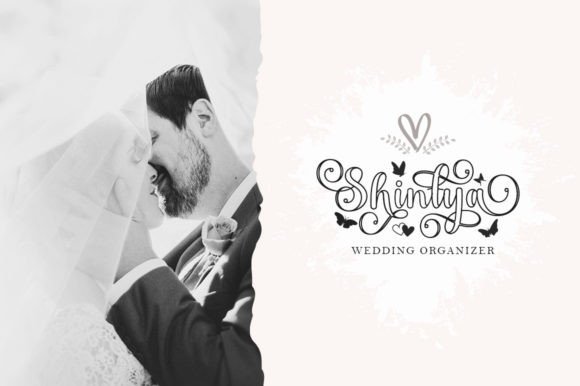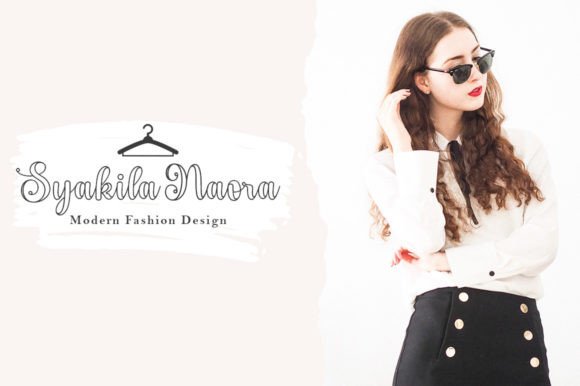
Introduction to Sabelia Outline Font
Sabelia Outline is a neat, beautiful, and elegant handwritten font perfect for your favorite projects.
Fun and relaxed, this font is ideal for writing wedding invitations, cards, or any other design that might need a fancy touch Fall in love with its radically different and timeless style, and use it to create spectacular designs.
Key Features of Sabelia Outline Font
Why Choose Sabelia Outline Font?
Sabelia Outline Font offers exceptional quality and versatility, making it a valuable addition to your design toolkit. Whether you’re creating for personal projects or commercial use, Sabelia Outline Font delivers professional results.